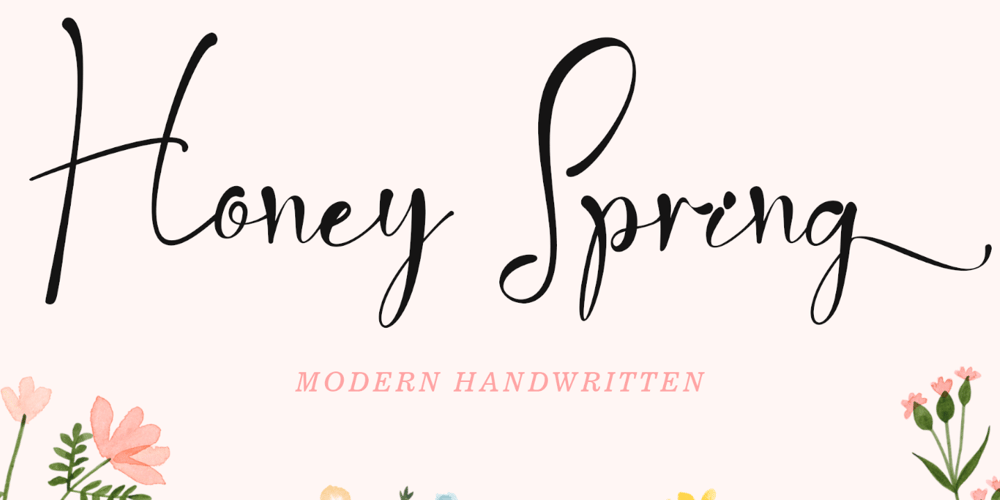
Honey Spring Font Family was designed by Selvia Cahya and published by Selvia Design. Honey Spring contains 1 styles and family package options. “Honey Spring” is a very natural and elegant handwritten modern font. This font is equipped with lowercase, uppercase, swashes, titling, numerals, punctuations, and multilingual support. Suitable for invitations, weddings, engagements, spring, valentines, and other special occasions.